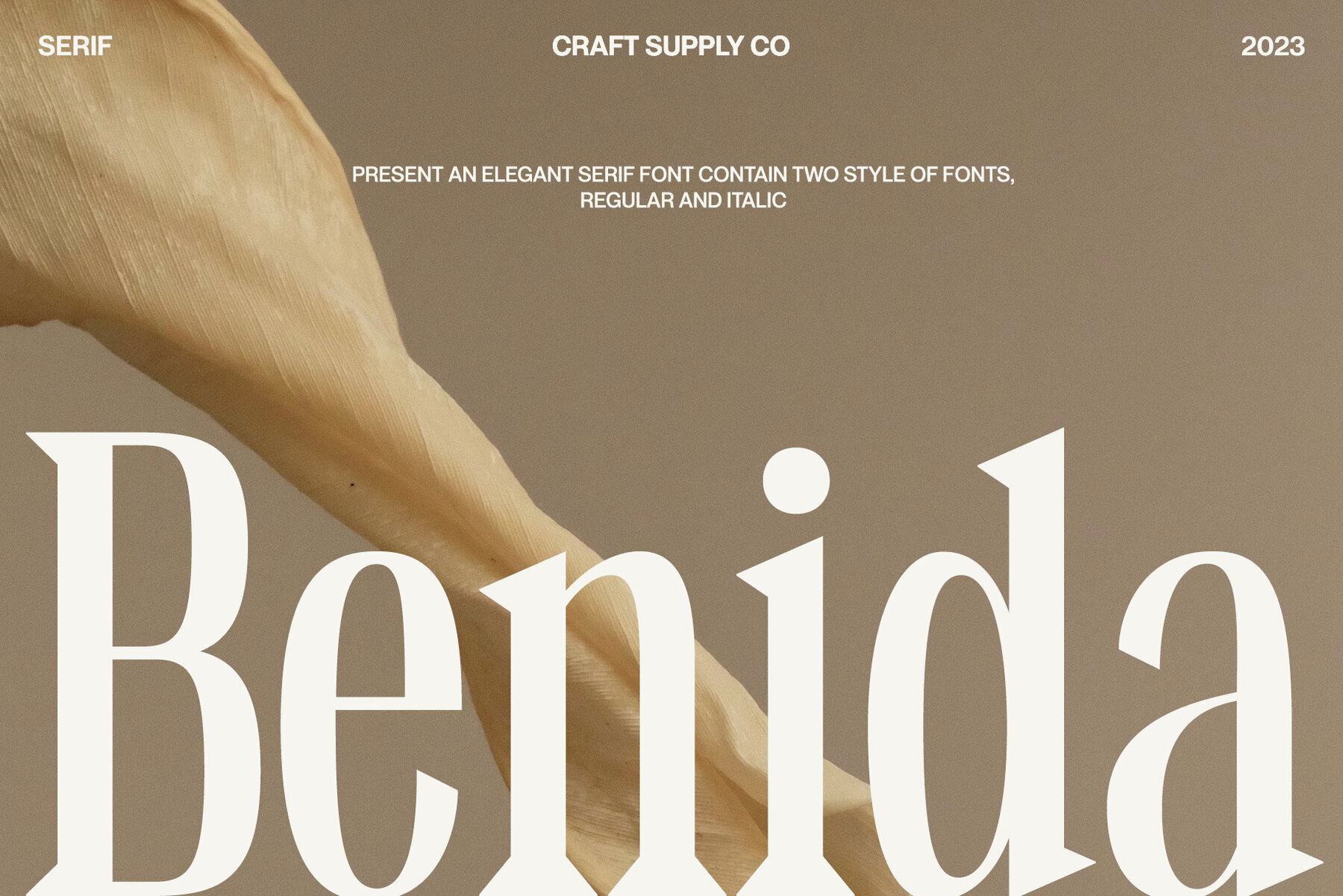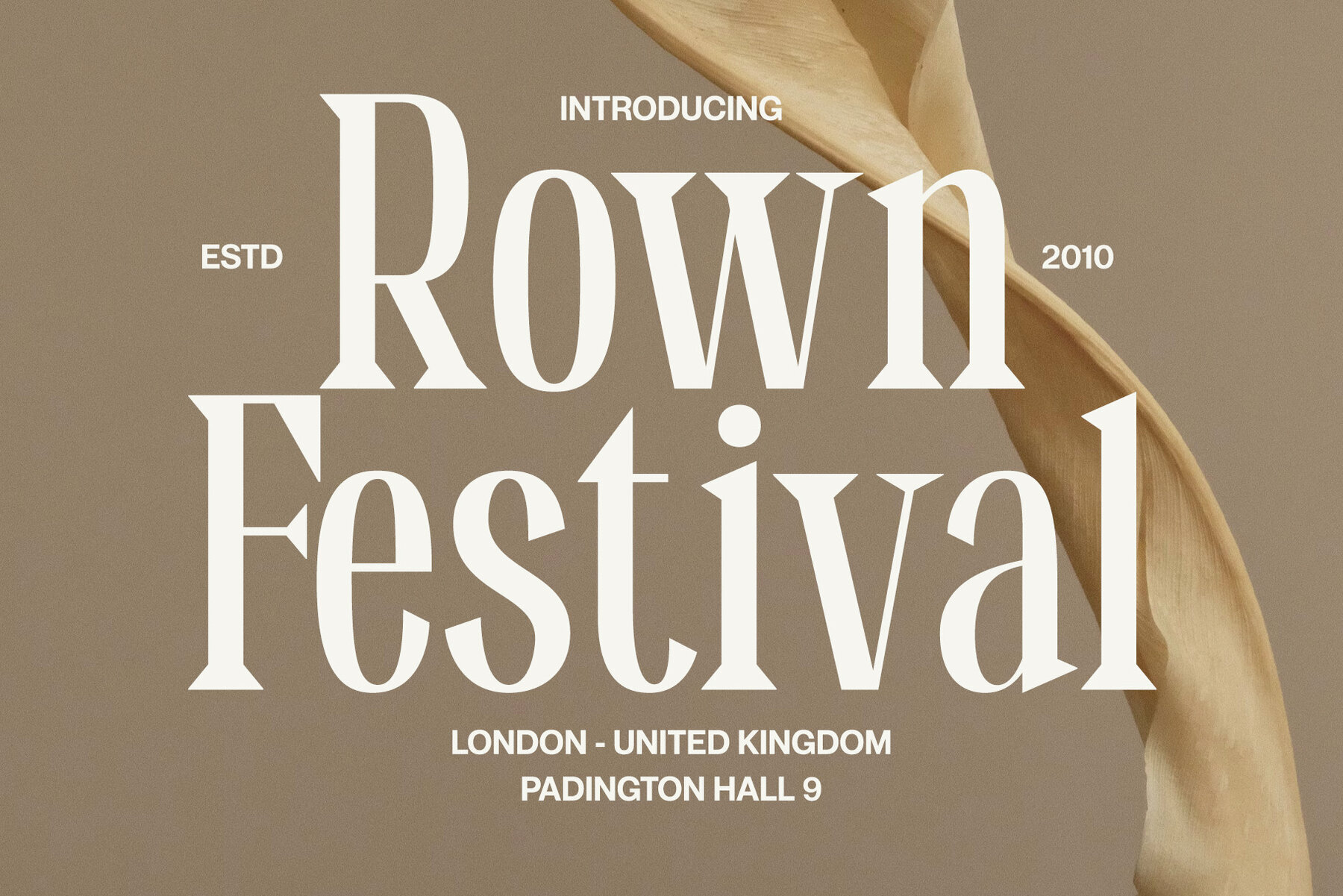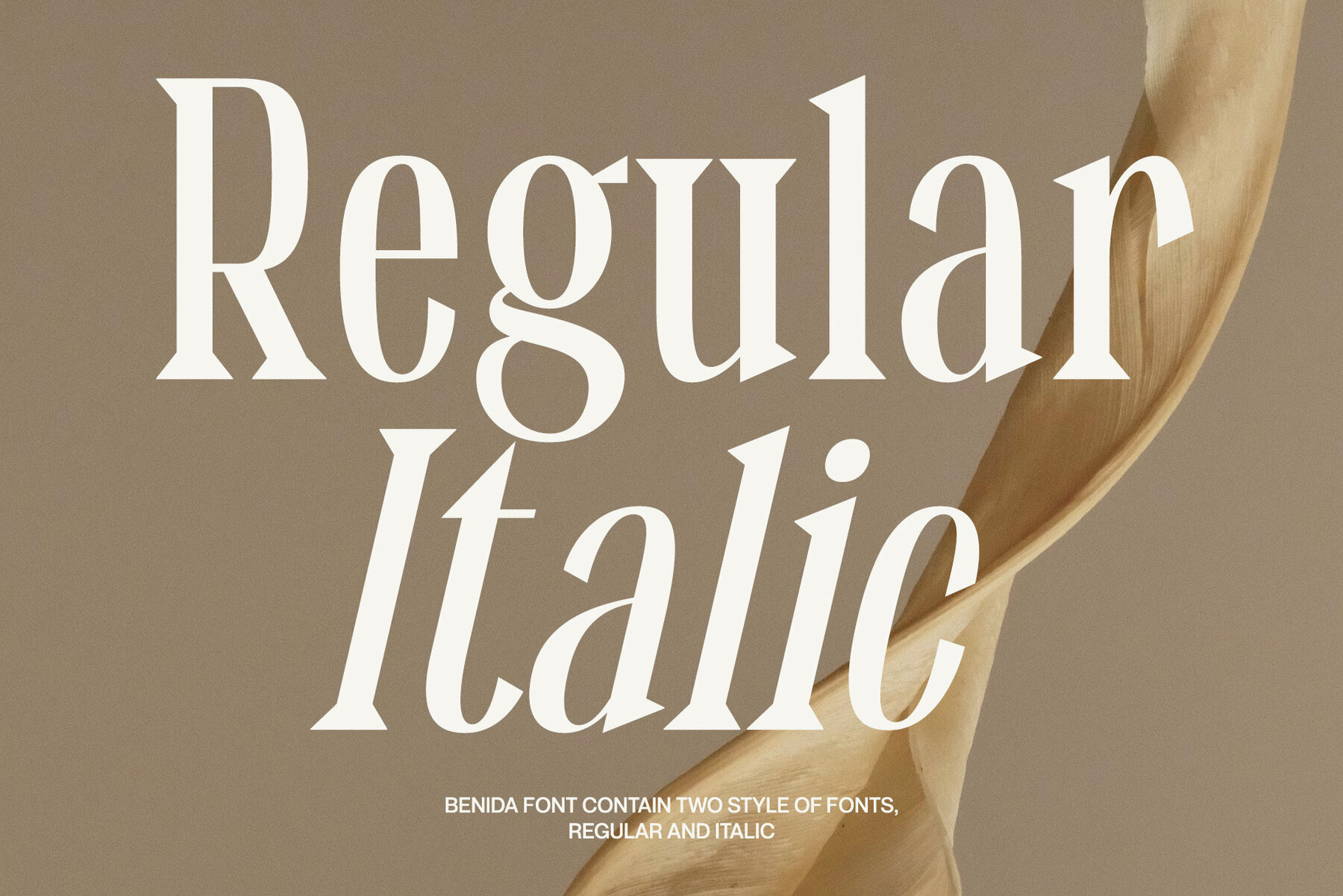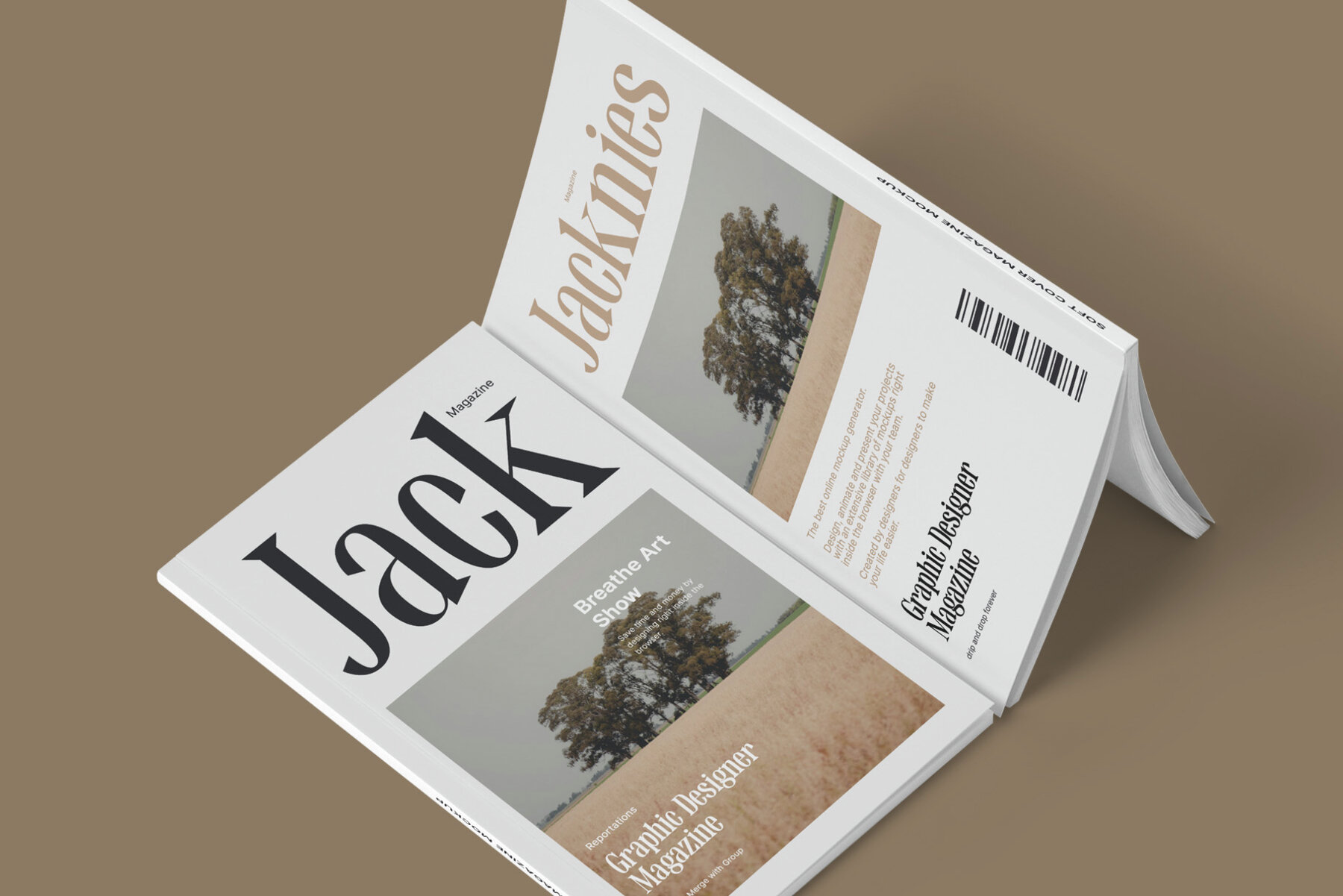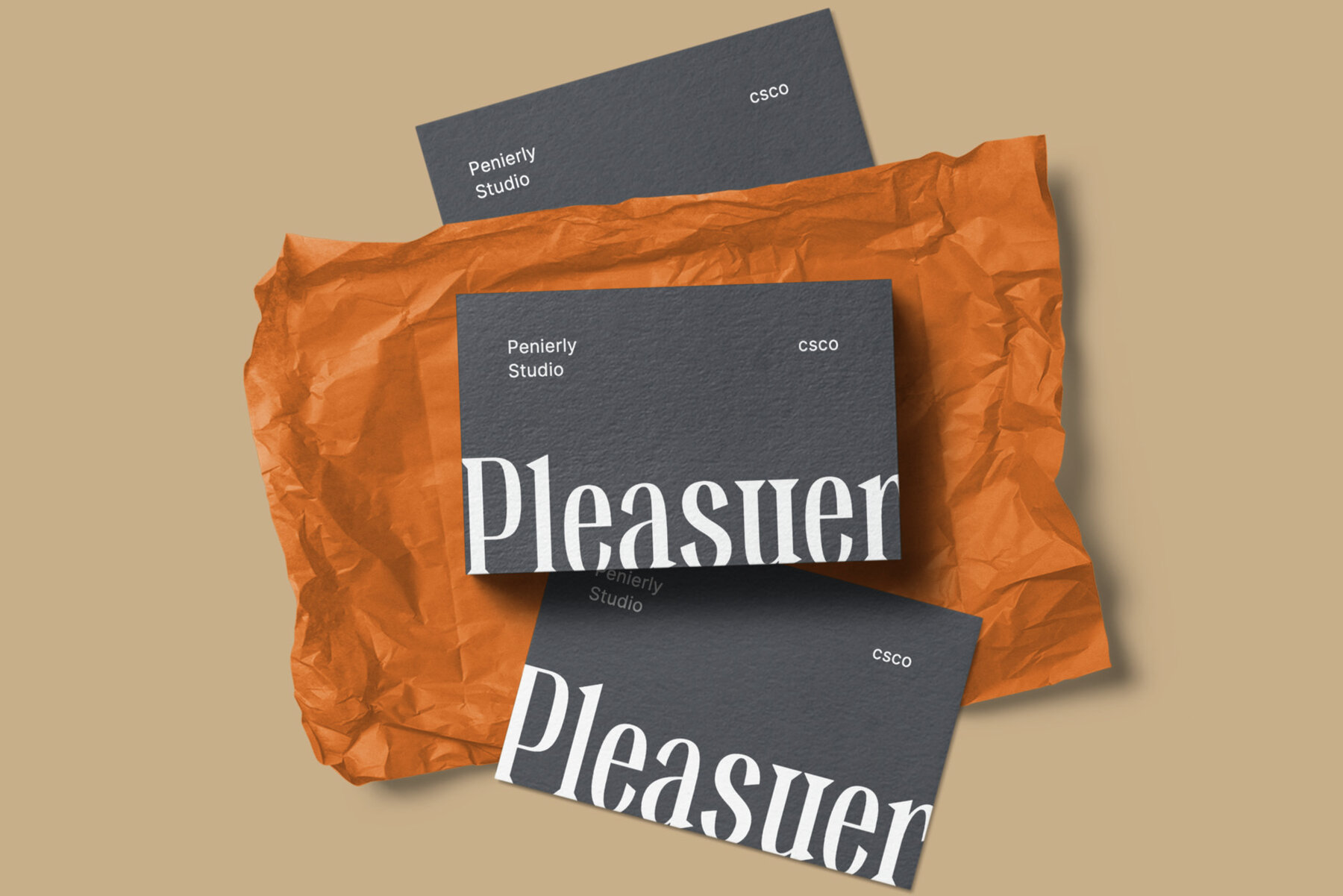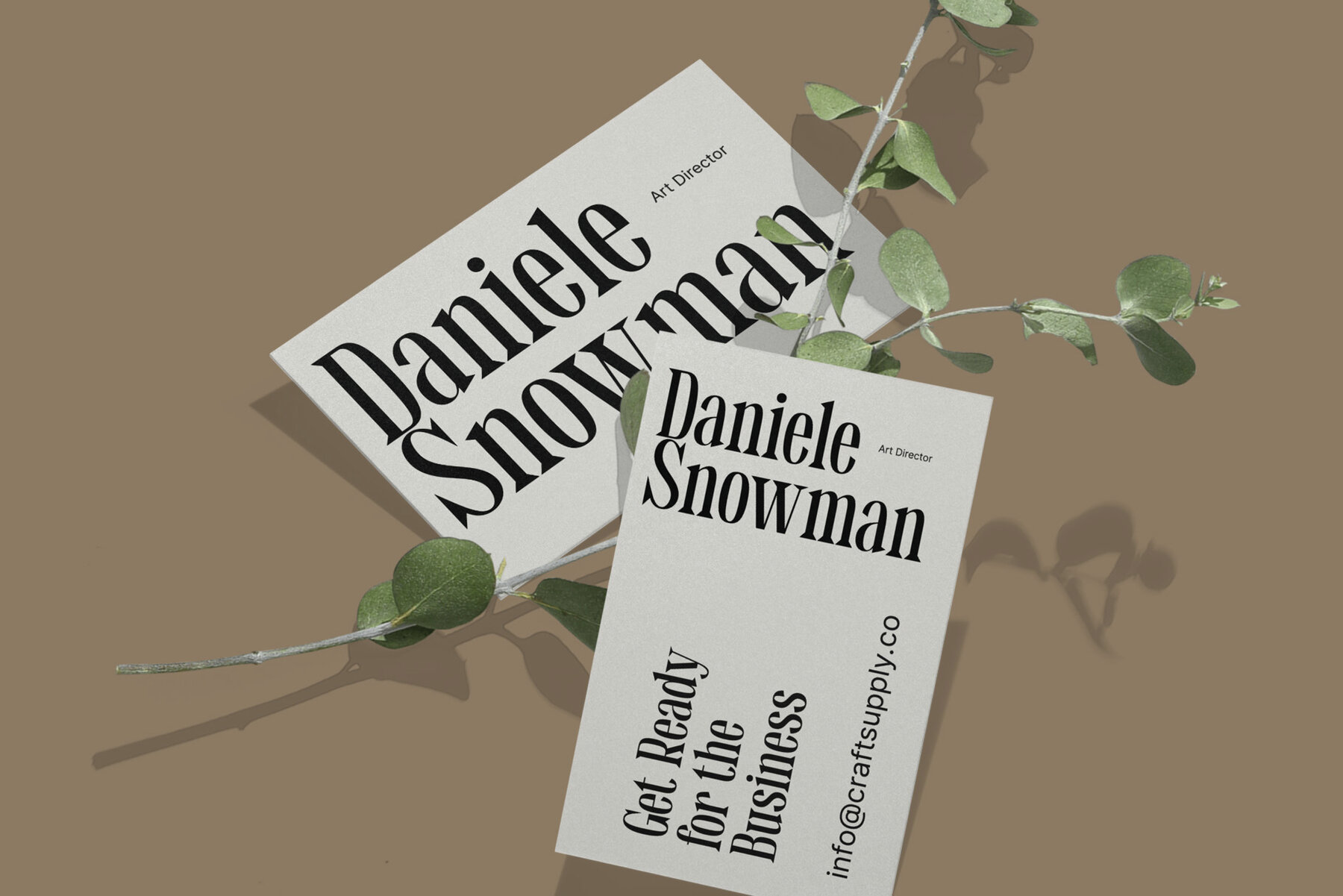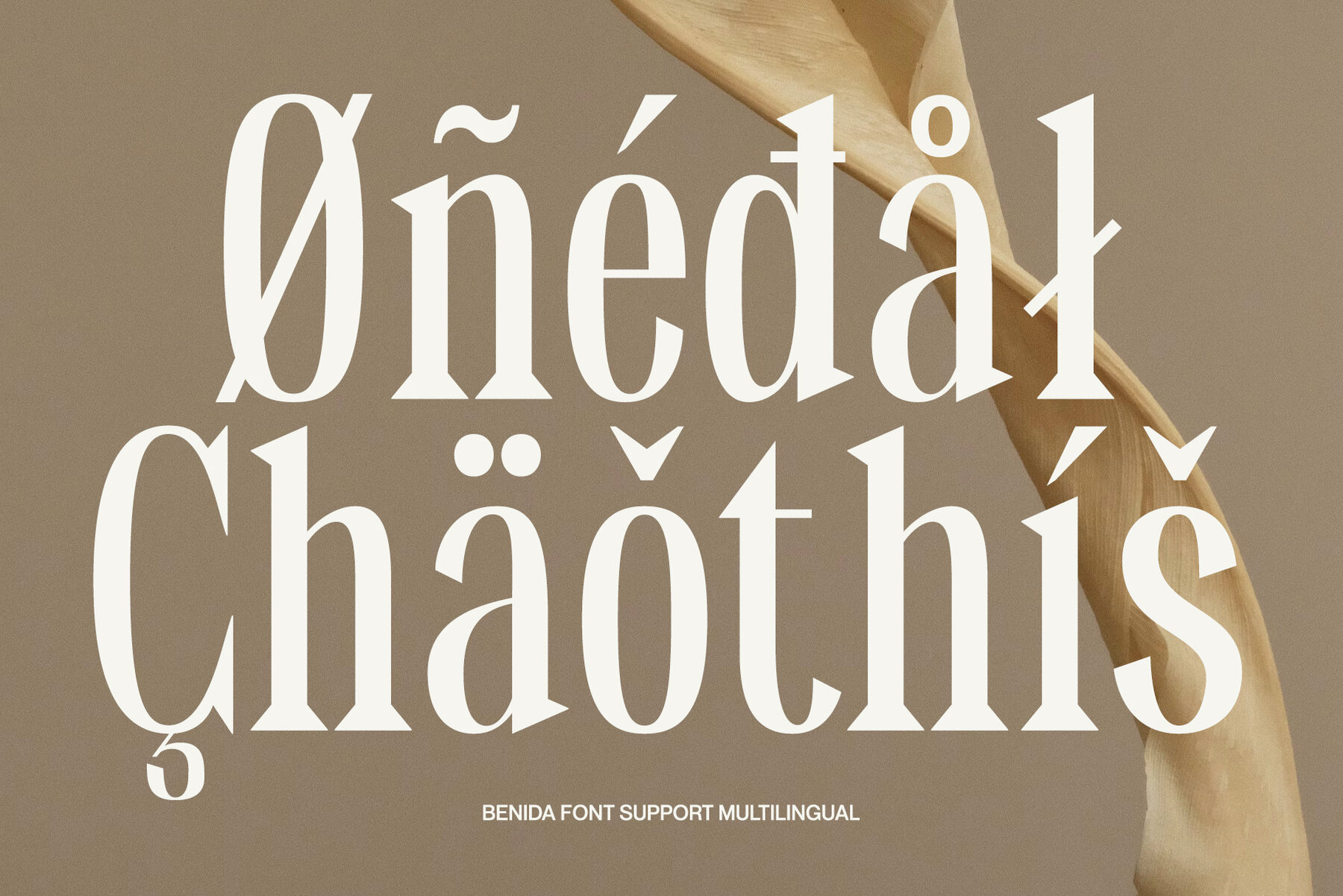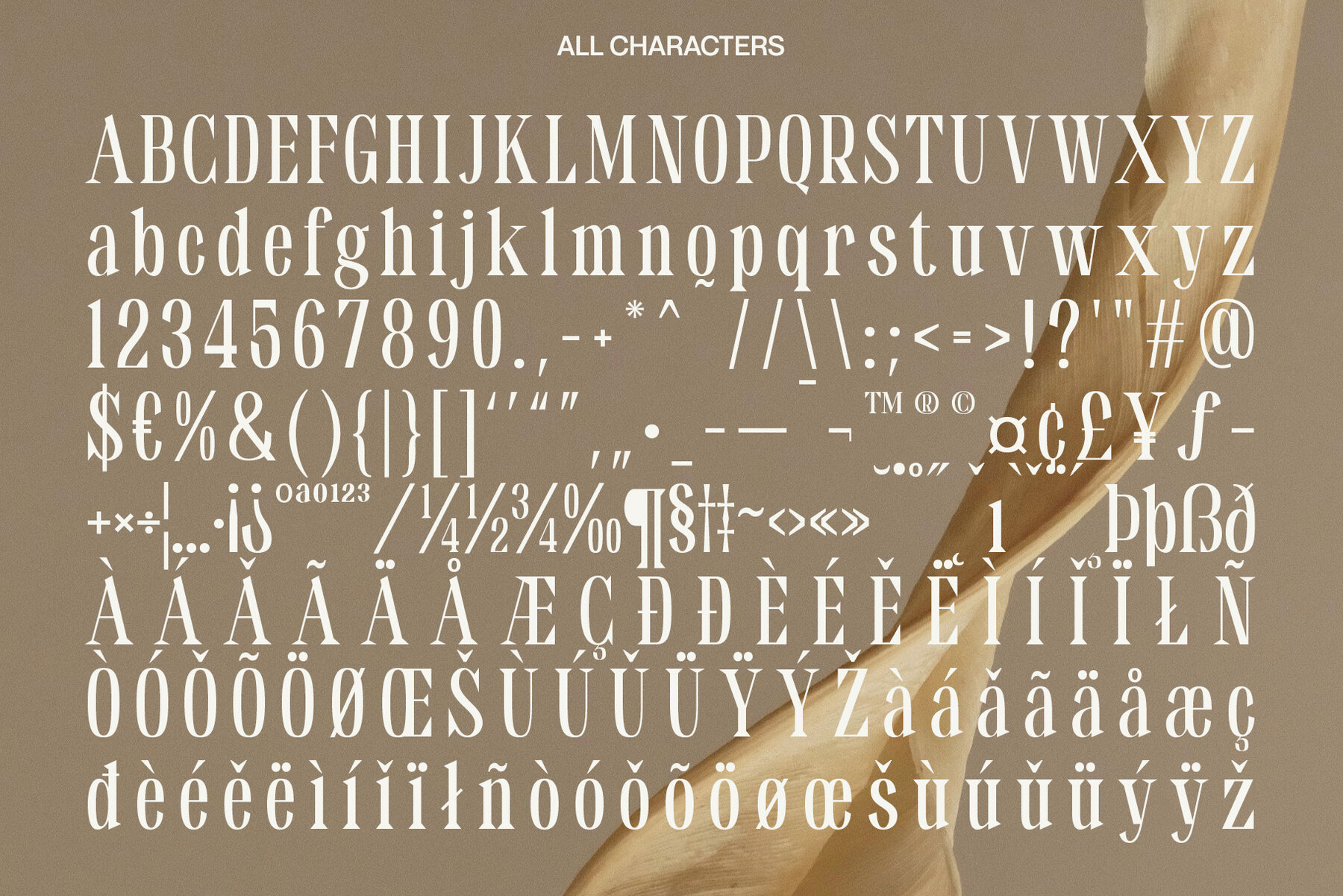
Benida Font
Benida, crafted by Craft Supply Co., is an elegant serif font characterized by its high-contrast design. Its unique style is perfect for a variety of applications, offering both boldness and refinement. Ideal for those seeking a mix of elegance and assertiveness, Benida presents a versatile choice. Benida boasts high-contrast serifs that add sophistication to its appearance. The carefully crafted wedges enhance its distinctiveness and impact. This font balances strength with grace, making it not only stand out but also suitable for both formal and creative uses.Benida: Elegant High-Contrast Serif Design
Design Features